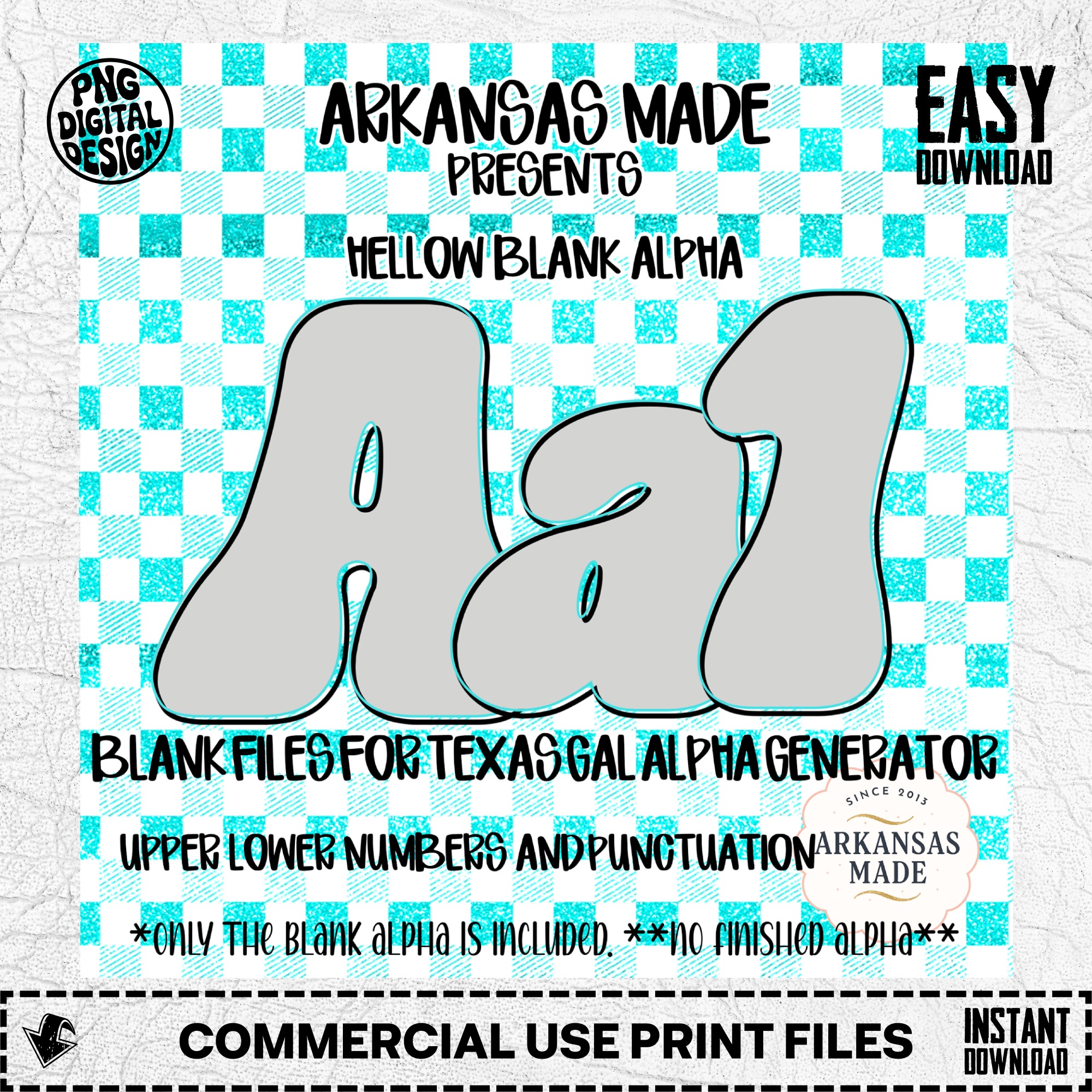
Blank Fillable Alpha Set Bubble Letters SVG PNG Bundle | DIY Custom Font for Crafters, Sublimation, Digital Design Uppercase Lowercase
Unleash your creativity with our Blank Fillable Alpha Set, featuring trendy bubble letters, numbers, and punctuation in SVG and PNG formats. Perfect for crafters, sublimation artists, and DIY enthusiasts, this digital download provides endless possibilities for custom designs. Create personalized gifts, unique apparel, or standout branding with these versatile letter outlines. An essential resource for any graphic designer or small business owner looking to add a playful, retro touch.